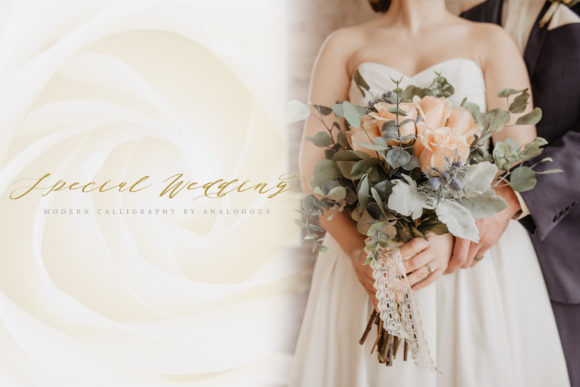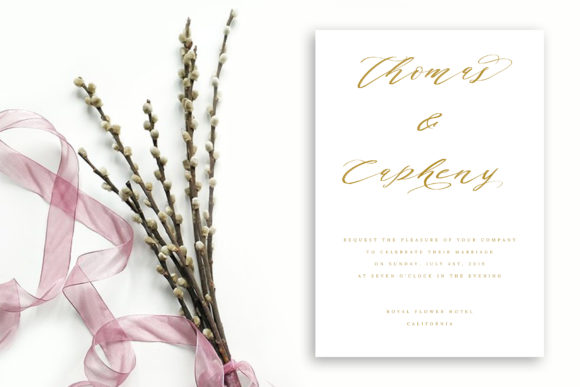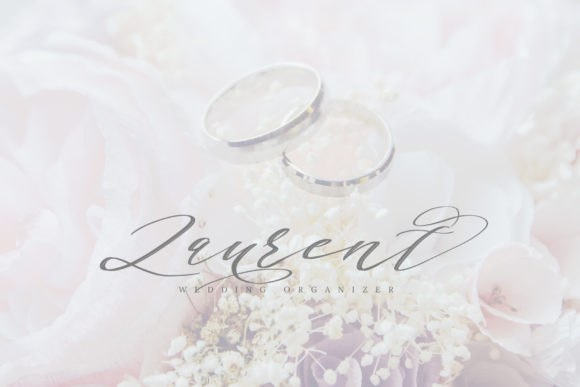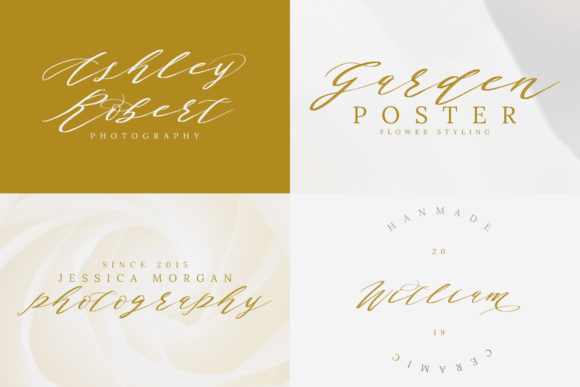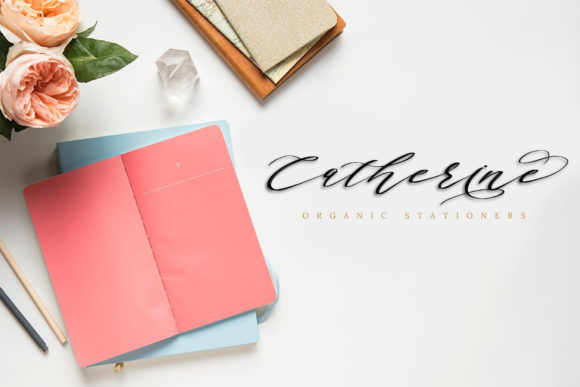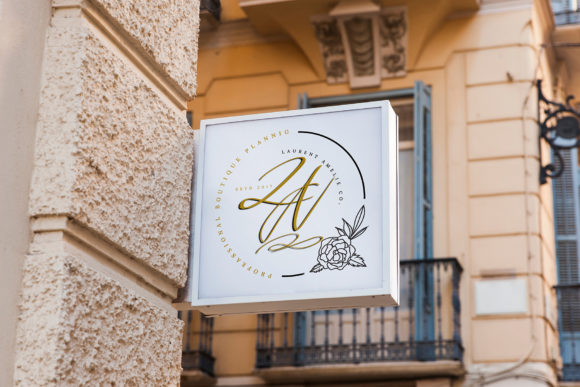
Introducing Authumn Sofia Font: Elevate Your Design with Classic Elegance
Are you on the hunt for a font that exudes classic typography with a twist of modern uniqueness? Look no further than the Authumn Sofia font. This stunning handwritten font is making waves in the design community, and for good reason. Its versatility and aesthetic appeal make it an excellent choice for a wide range of design projects. In this article, we’ll dive into the features and benefits of Authumn Sofia, exploring how it can elevate your designs and bring a touch of sophistication to your work.
The Inspiration Behind Authumn Sofia
Authumn Sofia draws inspiration from traditional typography, yet manages to carve out its own distinct style. This blend of classic and contemporary elements results in a font that feels both timeless and fresh. The inspiration behind Authumn Sofia is rooted in the desire to create a font that can seamlessly adapt to various design needs, from elegant headlines to more casual blocks of text.
Key Features of Authumn Sofia
So, what sets Authumn Sofia apart from other fonts? Here are a few key features that make it a standout:
- Handwritten Elegance: Authumn Sofia boasts a beautiful, handwritten aesthetic that adds a personal touch to any design.
- Versatility: This font is incredibly versatile, making it suitable for a wide range of applications, from web and print to moving images and more.
- Variable Font Styles: Authumn Sofia comes with both maximum and minimum variations, allowing you to experiment with different styles to find the perfect fit for your project.
Best Use Cases for Authumn Sofia
Given its unique blend of classic and modern elements, Authumn Sofia is suitable for a variety of design projects. Here are some of the best use cases for this fantastic font:
- Headlines: The elegant, eye-catching design of Authumn Sofia makes it perfect for headlines of all sizes.
- Blocks of Text: Whether you’re working on a blog post, article, or book, Authumn Sofia’s variable font styles ensure that your text will look great, whether it’s a short paragraph or a longer block of text.
- Web Design: Add a touch of sophistication to your website with Authumn Sofia, which works beautifully for both headings and body text.
- Print Design: From business cards to brochures, Authumn Sofia’s classic elegance shines through in print.
- Moving Images: This font is also well-suited for use in video content, such as explainer videos, movie titles, and more.
Why Choose Authumn Sofia?
With so many fonts available, why should you choose Authumn Sofia for your next design project? Here are a few compelling reasons:
- Unique Style: Authumn Sofia’s distinctive style sets it apart from more generic fonts, ensuring your design stands out.
- Ease of Use: This font is incredibly easy to use, even for designers who are new to working with handwritten fonts.
- High Versatility: Whether you’re working on a small project or a large-scale design endeavor, Authumn Sofia adapts beautifully.
Tips for Using Authumn Sofia Effectively
To get the most out of Authumn Sofia, here are a few tips to keep in mind:
- Experiment with Sizes: Don’t be afraid to experiment with different font sizes to find the perfect balance for your design.
- Mix and Match: Try pairing Authumn Sofia with other fonts to create a unique visual hierarchy.
- Pay Attention to Spacing: Make sure to adjust the spacing between letters and lines to ensure optimal readability.
| Author | Analogous |
In conclusion, Authumn Sofia is a remarkable font that brings a touch of classic elegance to any design project. Its unique style, versatility, and ease of use make it an excellent choice for designers and crafters looking to elevate their work. Whether you’re working on a website, print materials, or moving images, Authumn Sofia is sure to make a lasting impression. So why wait? Give Authumn Sofia a try today and discover the difference it can make in your designs.